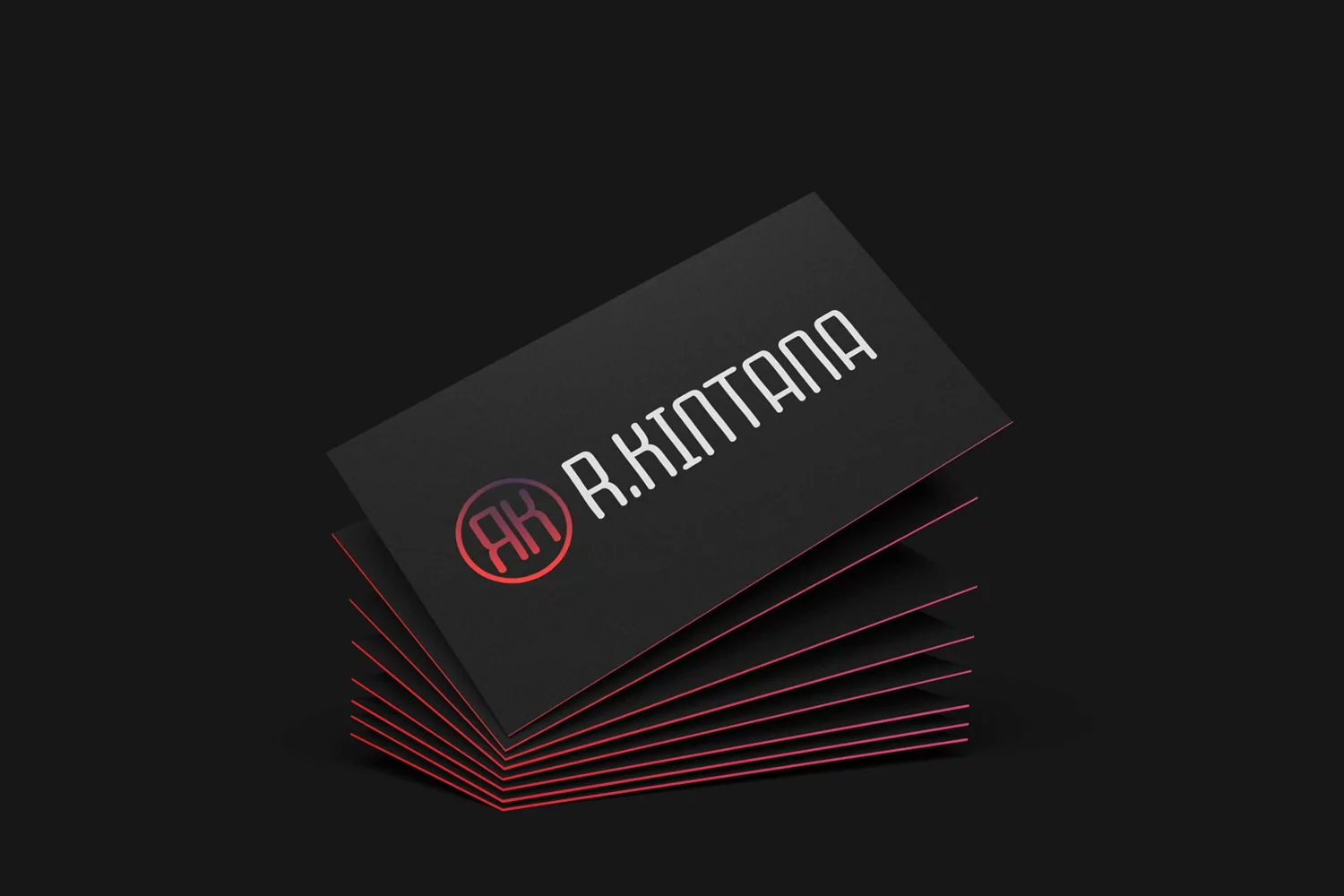
Bomba is a modern sans serif typeface. Perfect for display, poster, quotes, film, craft needs, book cover, business card, packaging, merchandise, branding, logo, logotype, header, title, and many more.